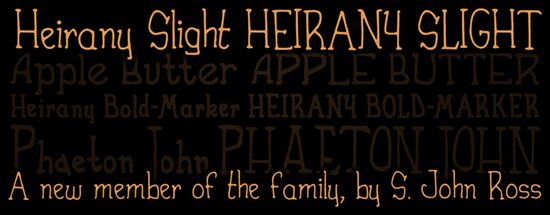
Heirany Slight by S. John Ross is a free whimsical handwritten display font with slender, wavering strokes and flared ends. Its changing stroke widths and uneven curves give the letters an inked, improvised quality. The shapes feel delicate but lively.
On book covers and event posters, this loose construction suits folklore, poetry, or performances, and it can also lend packaging a hand-lettered mark. Its crooked curves are especially at home with fairy-tale subjects, botanical illustration, and eccentric children's publishing.